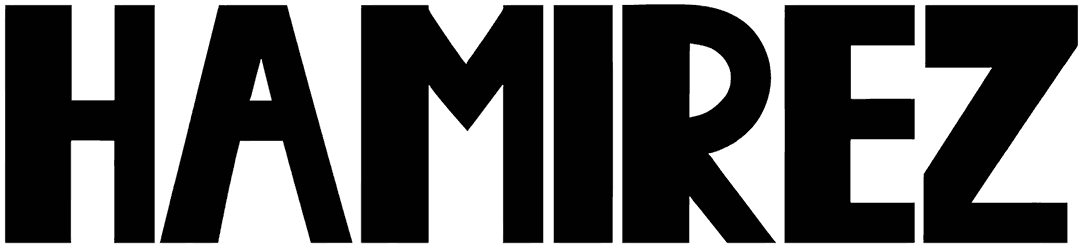
Hamirez Font
You think you’ve already experienced what it’s like to host tons of fun in your lettering? After you work with Hamirez, you’re going to see what a real sans serif font is capable of. Don’t worry, it’s not going to affect the significance of your message, because it’s all done through bold letters.
Try not to miss this tiki font and its sweet, tall letters in your playful projects, such as summer posters and animation,s because that’s exactly what Hamirez is for.